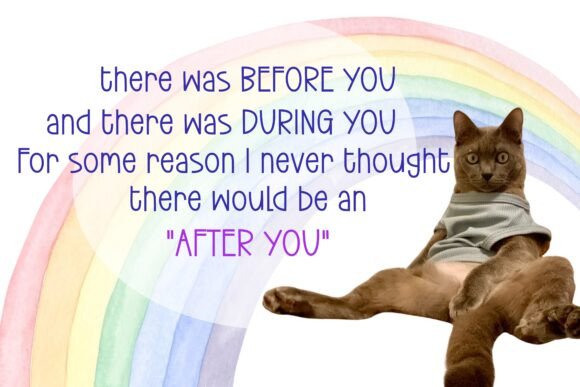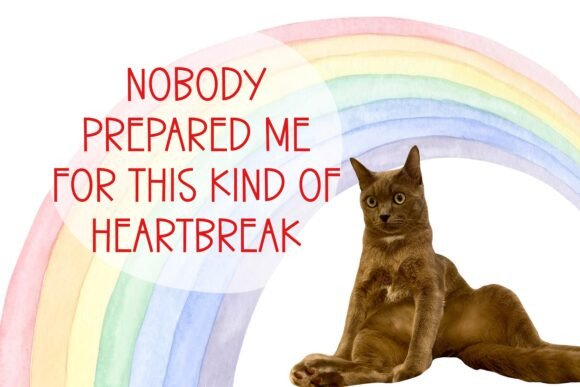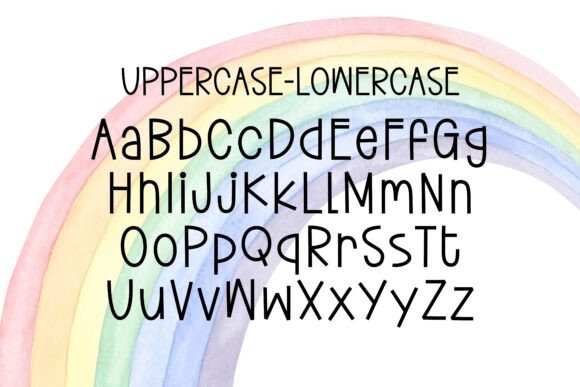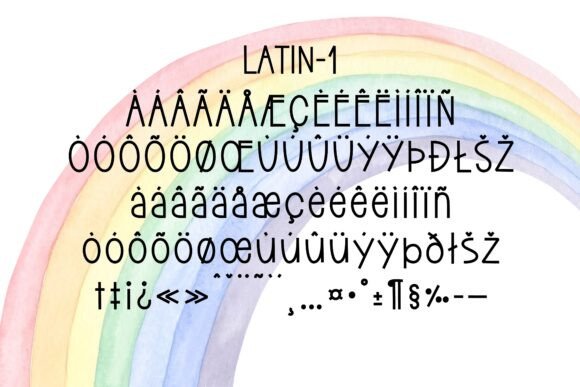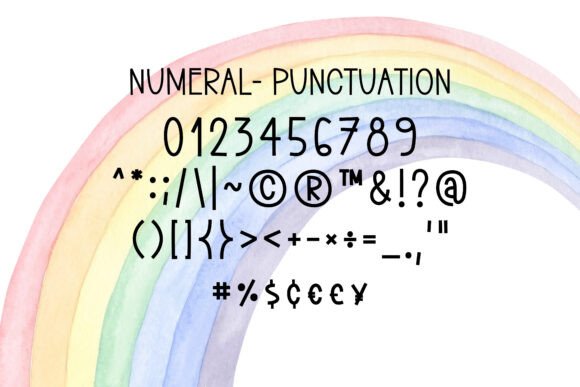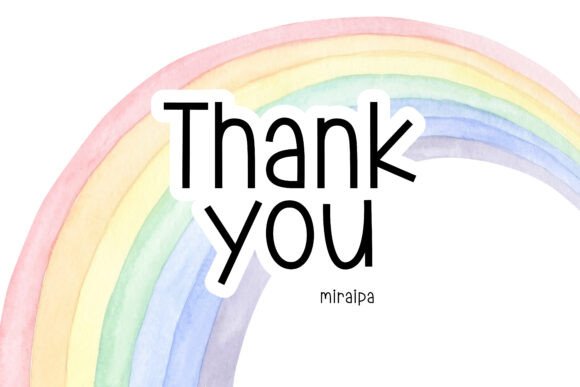
Introduction to Rainbow Bridge Font
Have you ever stumbled upon a design that perfectly captures the essence of a project, making it shine with warmth and personality? For me, that moment happened when I discovered the Rainbow Bridge Font. Its vibrant colors and playful handwritten style instantly drew me in, and I knew I had to learn more about this incredible design resource.
As a designer, I can appreciate the value of a high-quality font that can elevate a creative project from ordinary to extraordinary. The Rainbow Bridge Font is no exception, with its tall, clean, and slightly quirky letterforms radiating warmth and charm. Whether you’re working on a children’s book, pet memorial, or classroom decor, this font is sure to add an emotional and heartfelt touch to your design.
Key Features of Rainbow Bridge Font
- Unique, colorful font with a transparent background, perfect for overlaying on images
- Unique, whimsical characters that add a touch of magic to any creative project
Honest Review: Rainbow Bridge Font
I recently had the chance to work with the Rainbow Bridge Font, and I must say it’s been a game-changer for my creative projects. The design resource offers a wide range of vibrant colors and unique typography that can add a touch of personality to any design.
One of the things that works well with this font is its transparent background option. This allows me to easily layer it over other elements in my design without worrying about unwanted backgrounds or edges. It’s a small but important detail that makes a big difference in the overall look of my project.
- ✨ Vibrant color palette with a wide range of options
- ✨ Unique typography that can add a touch of personality to any design
- ✨ Transparent background option for easy layering
Overall, I’m impressed with the Rainbow Bridge Font. It’s a great design resource for anyone looking to add some personality to their creative project. While it may have some limitations, its high quality and unique design make it well worth the investment.
The Rainbow Bridge Font is perfect for creative projects such as social media graphics, blog posts, or marketing materials. Its versatility makes it an ideal choice for designers, artists, and anyone looking to add a touch of creativity to their work.